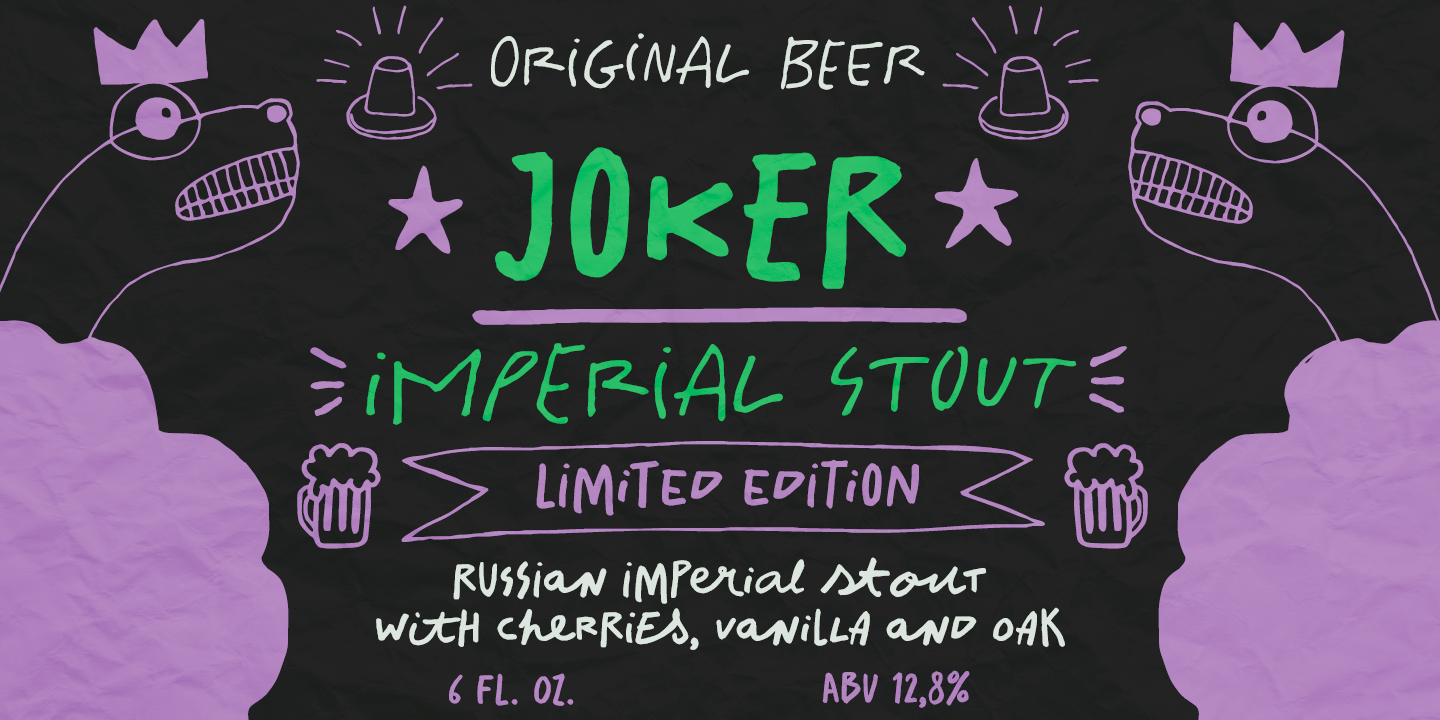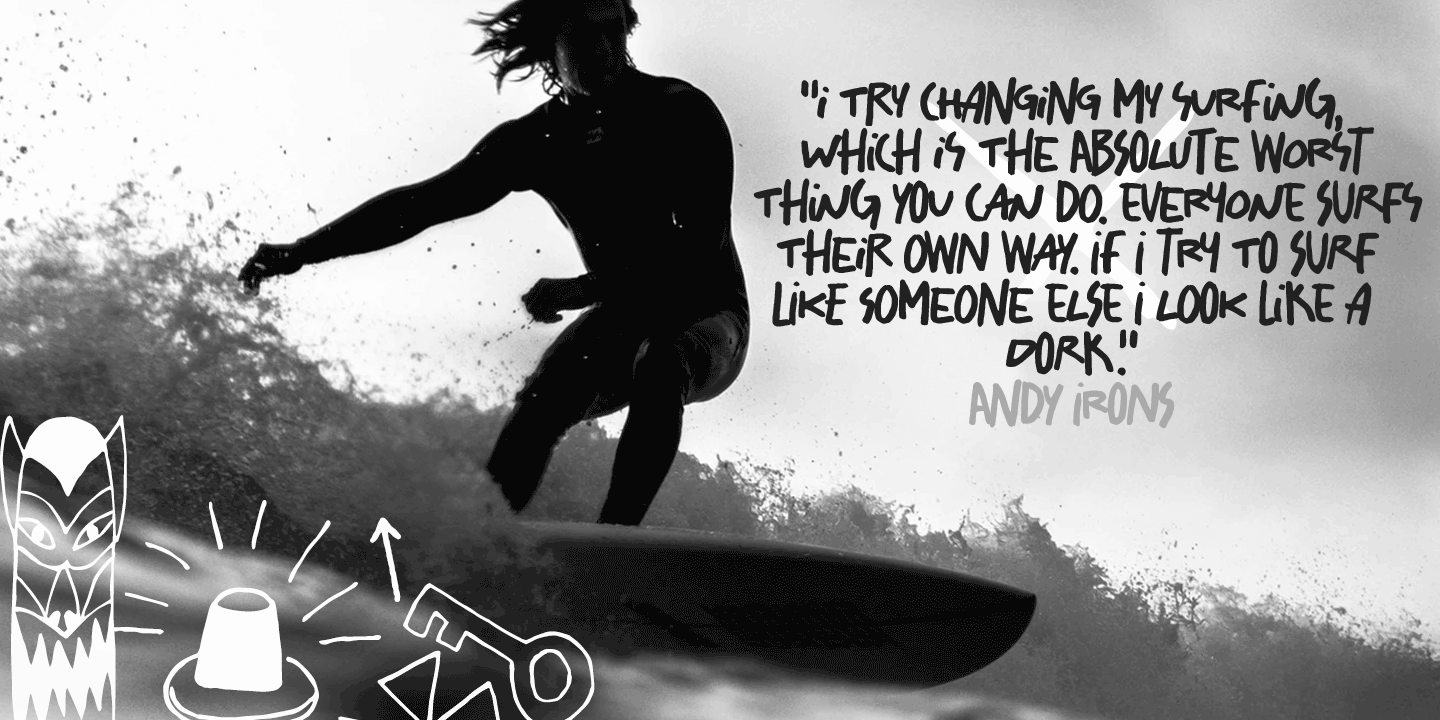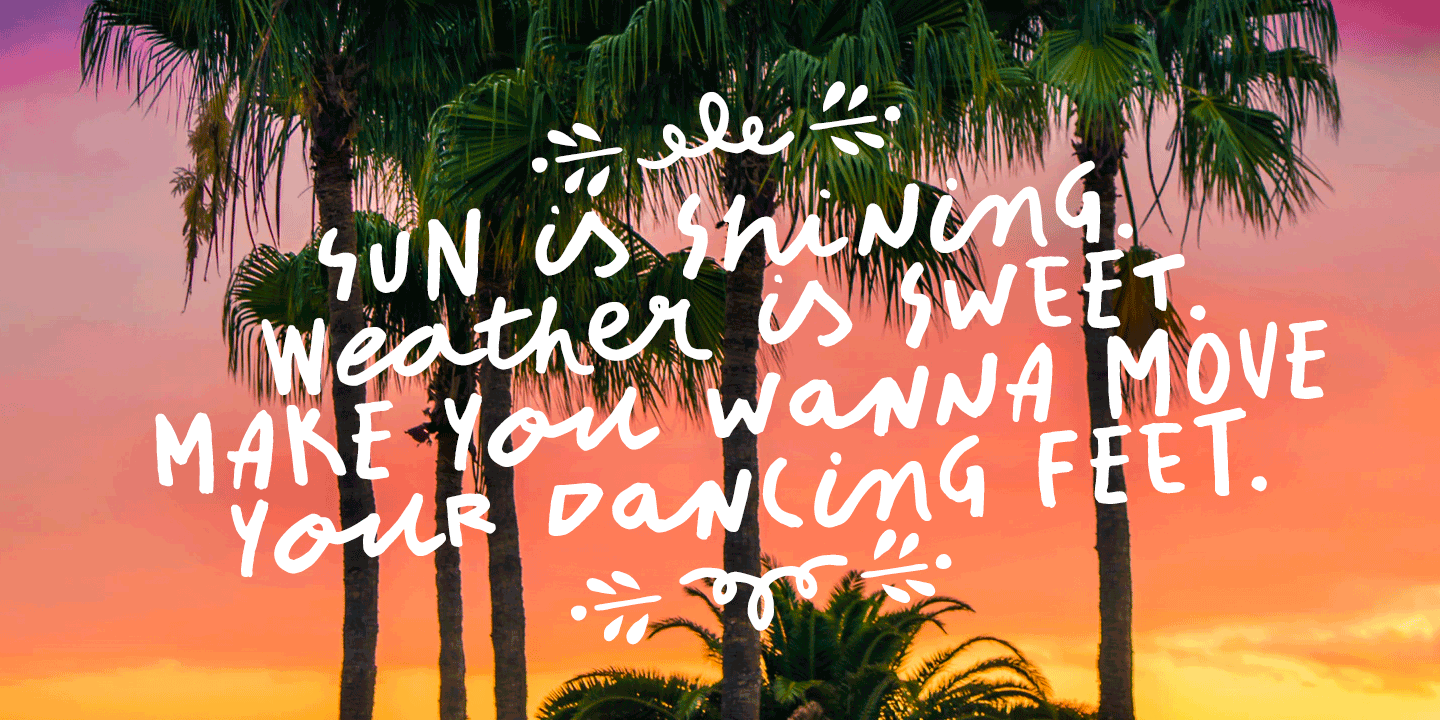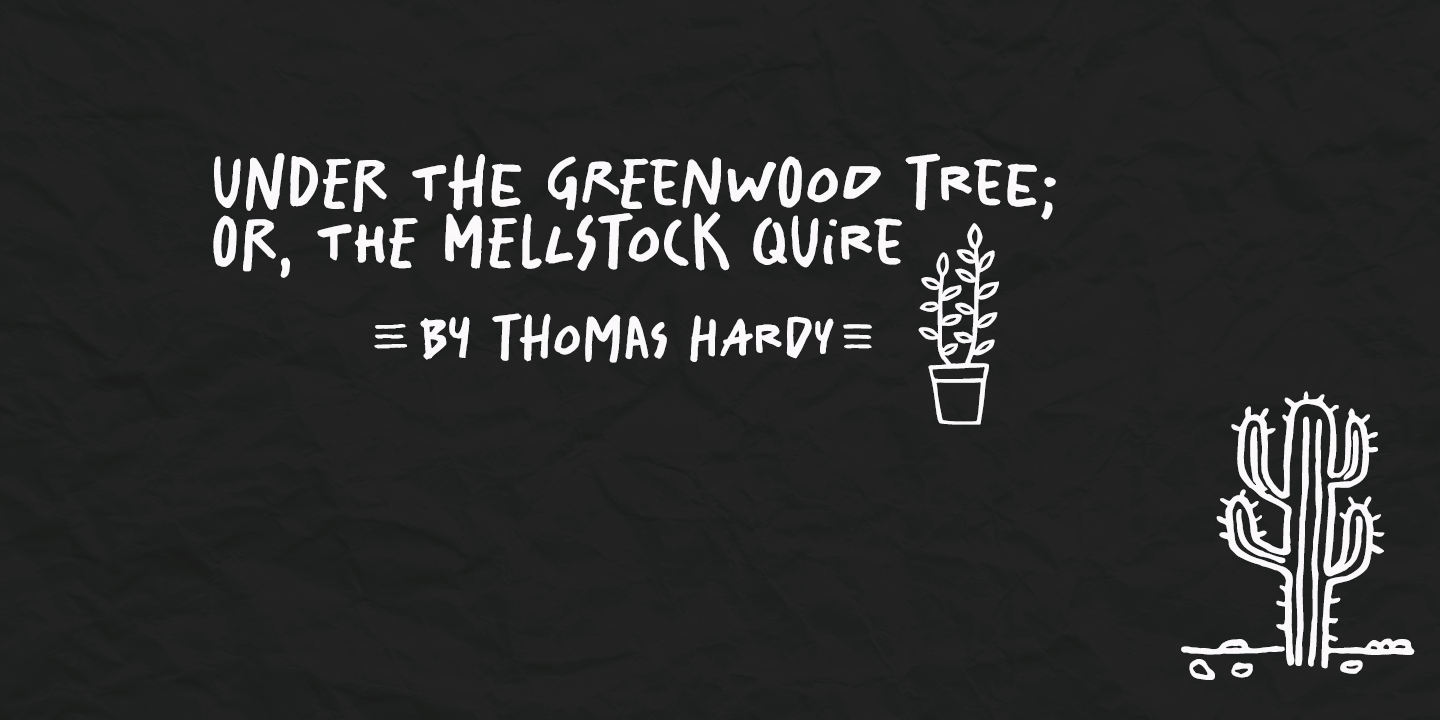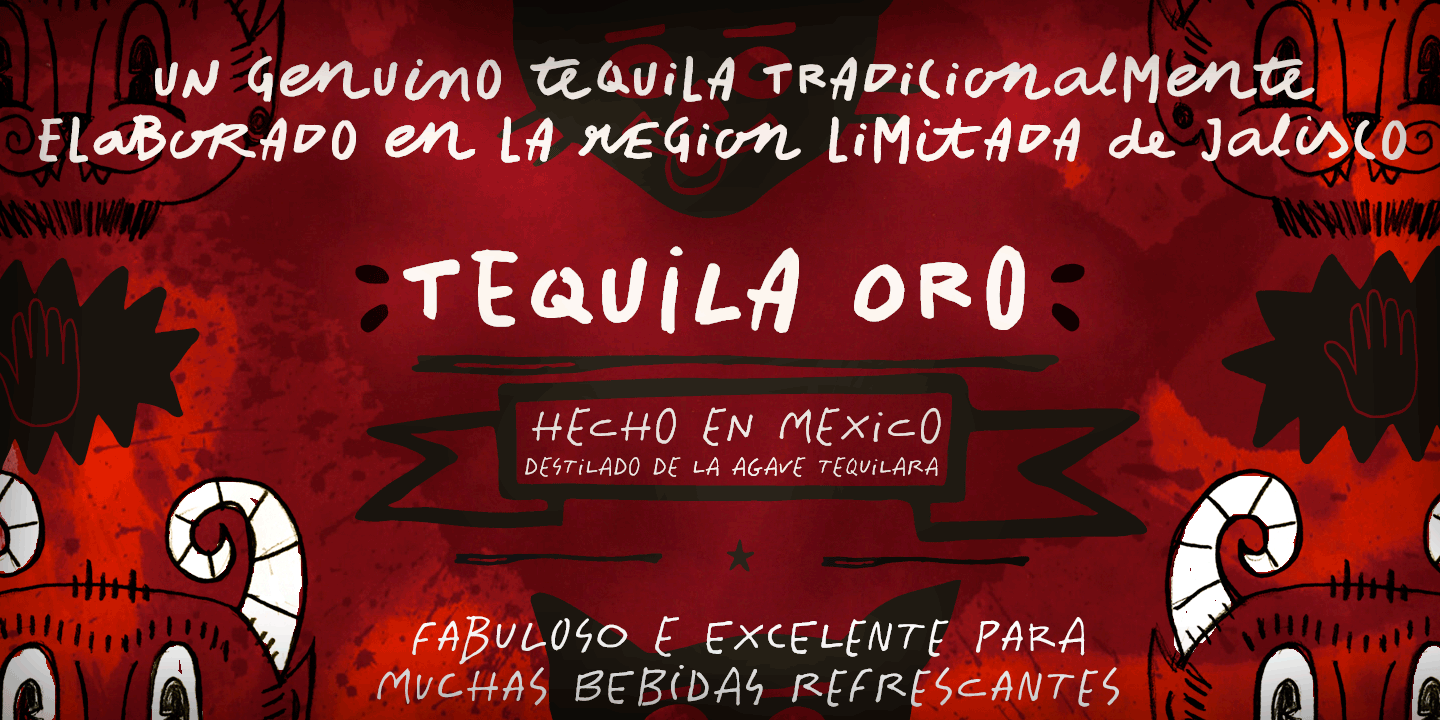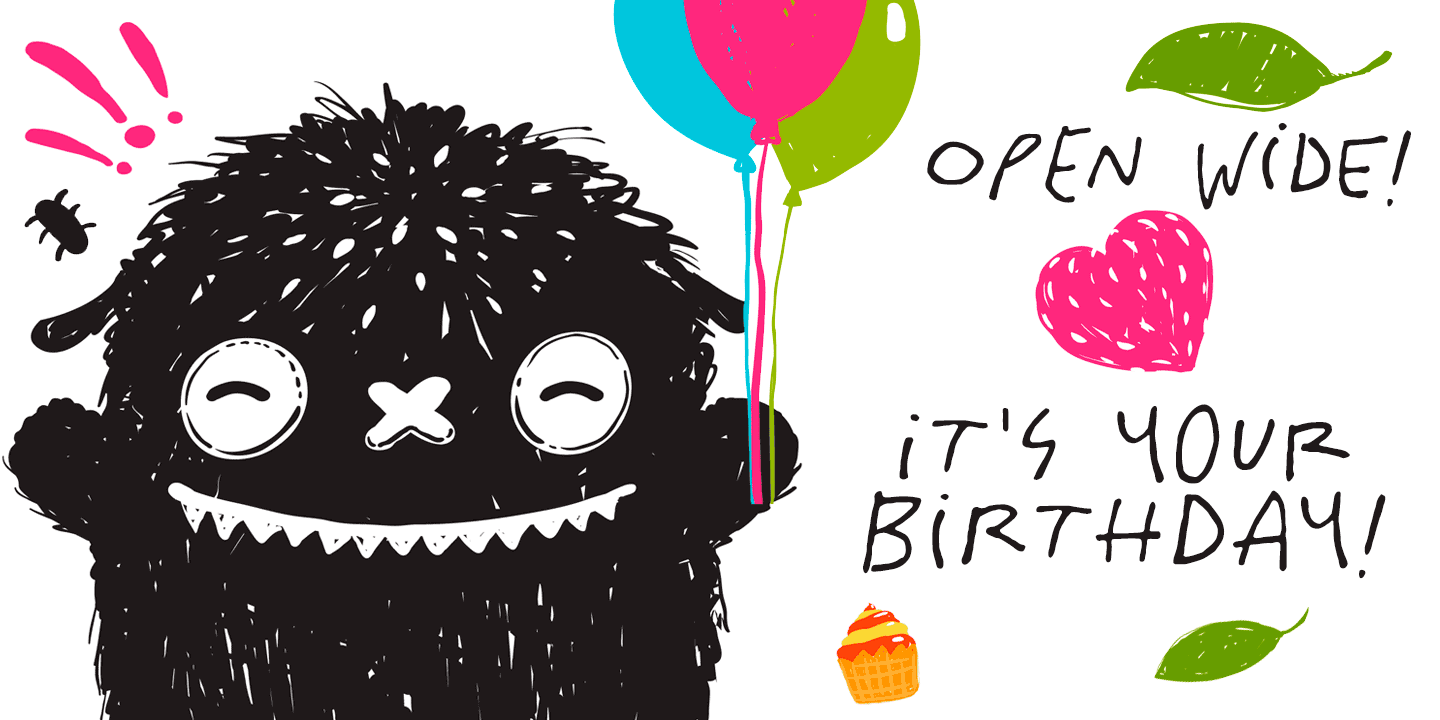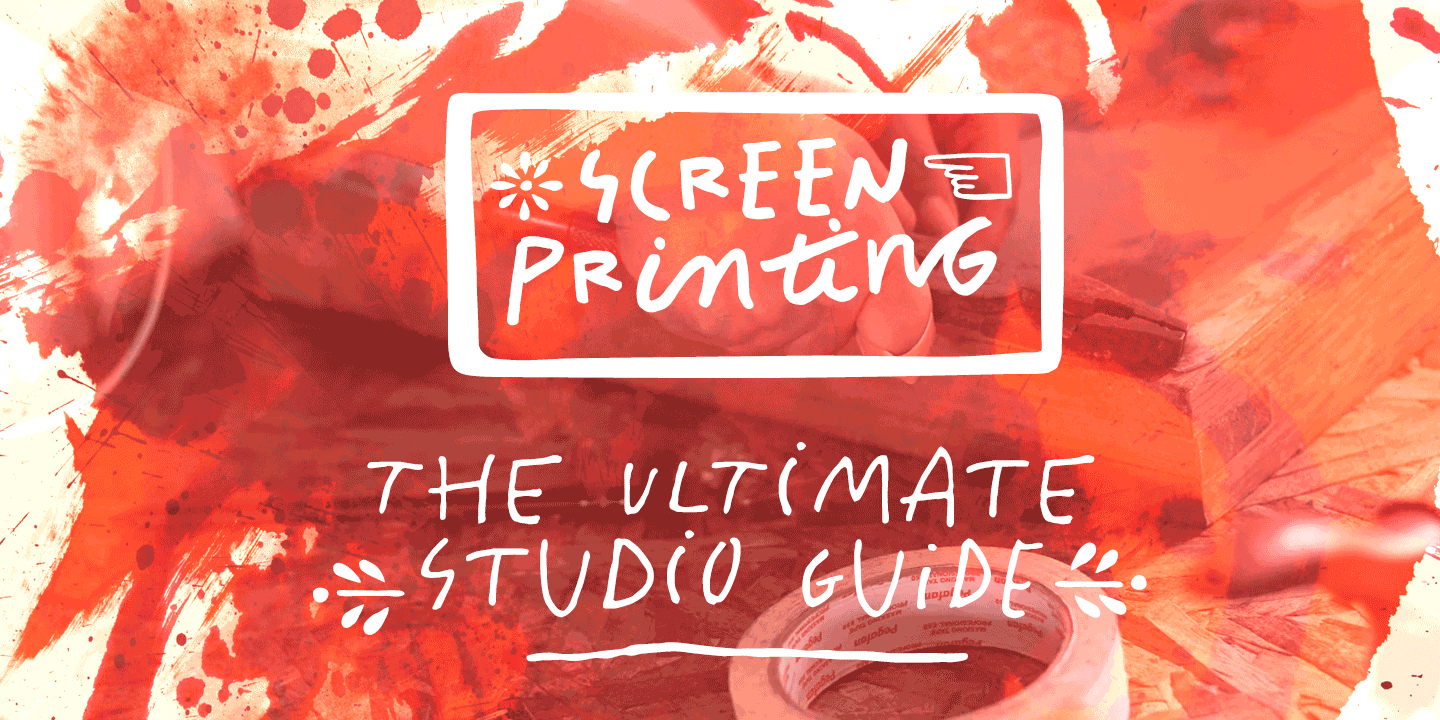
About the Salted Font
About Salted Font Family Somewhat extravagant and yet quite useful? Yes, absolutely.Meet Salted family: two awesome styles and a way cool picture font. Deliberately free-spirited, Salted – the Regular, yet regular is not quite an appropriate adjective for it – brings alternates and also discretionary ligatures that completely transform the font mood, adding unexpected touches of cursive script here and thus creating sort of a wild feel.
Salted Sweet also brings alternates: 3 for letters, 2 for digits, and is way more even-tempered than it’s playmate. By the way, they play truly nice together. Enter the picture font and the team is complete for an exciting time.It’s said that the cure for anything is salt water: sweat, tears or the sea. We totally agree. Perhaps the cure for a boring design lies in a salted font. Give it a go! Designers: Erica Jung, Ricardo MarcinPublisher: PintassilgoPrintsFoundry: PintassilgoPrintsDesign Owner: PintassilgoPrintsMyFonts debut: Feb 15, 2018 Salted